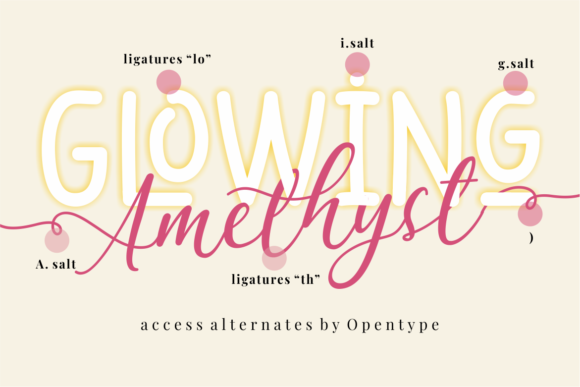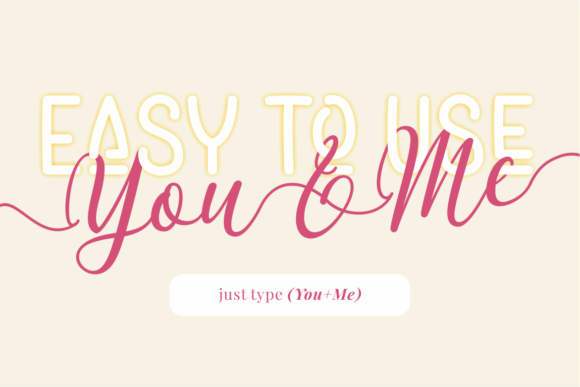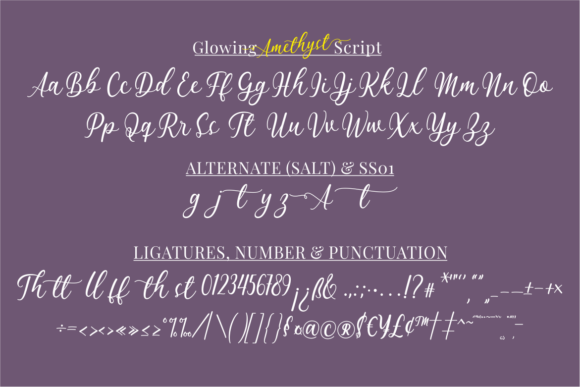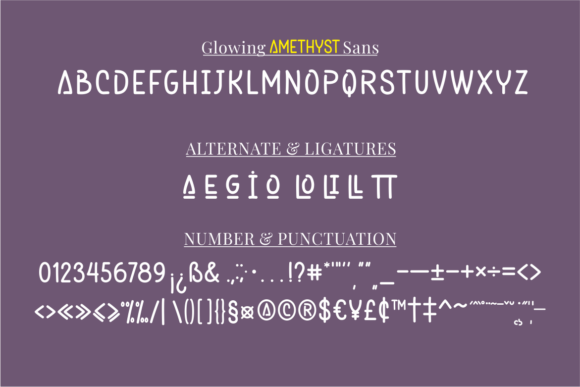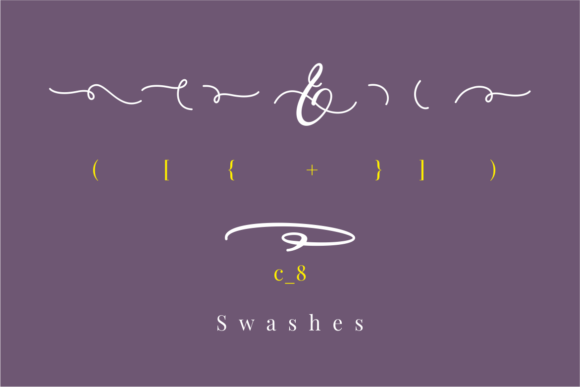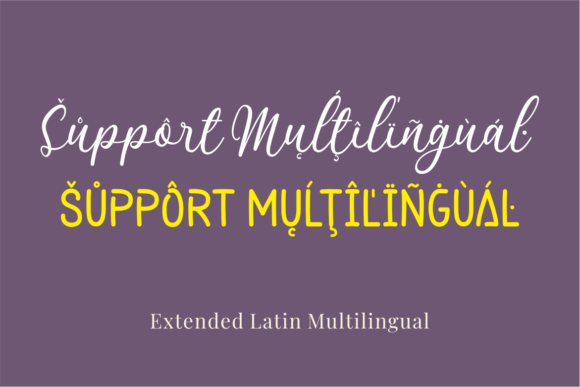
Introducing the Glowing Amethyst Font: Elevate Your Crafts with Elegance and Cheer
Are you a designer or crafter looking for the perfect font to add a touch of sophistication and playfulness to your projects? Look no further than the Glowing Amethyst Font! This stunning font duo is designed to complement each other perfectly, making them ideal for a wide range of creative applications. In this article, we’ll dive into the features and benefits of the Glowing Amethyst Font, and explore how it can elevate your crafts to the next level.
A Perfect Pair: The Glowing Amethyst Font Duo
The Glowing Amethyst Font consists of two beautifully crafted fonts that are designed to work together in harmony. Whether used in tandem or separately, these fonts are sure to add a chic and cheery touch to your projects. The fonts feature a elegant and refined aesthetic, making them perfect for a variety of design applications, from stationery and invitations to branding and advertising.
One of the standout features of the Glowing Amethyst Font is its PUA (Private Use Area) encoding. This means that you can access all glyphs and swashes with ease, giving you maximum flexibility and creative control. With PUA encoding, you can easily insert special characters, ligatures, and swashes into your designs, allowing you to add an extra layer of depth and visual interest.
The Glowing Amethyst Font is incredibly versatile, making it suitable for a wide range of design applications. Here are just a few ideas to get you started:
- Stationery and invitations: Add a touch of elegance and sophistication to your stationery and invitations with the Glowing Amethyst Font.
- Branding and advertising: Use the Glowing Amethyst Font to create eye-catching logos, advertisements, and marketing materials that are sure to grab attention.
- Crafting and scrapbooking: Add a cheery and playful touch to your crafts and scrapbooking projects with the Glowing Amethyst Font.
- Digital design: Use the Glowing Amethyst Font in your digital designs, such as social media graphics, blog posts, and website headers.
Why Choose the Glowing Amethyst Font?
So why should you choose the Glowing Amethyst Font for your design projects? Here are just a few reasons:
- Unique and elegant aesthetic: The Glowing Amethyst Font features a unique and elegant aesthetic that is sure to set your designs apart.
- High-quality design: The font is carefully crafted with attention to detail, ensuring a high-quality design that looks great in any application.
- Easy to use: The PUA encoding makes it easy to access all glyphs and swashes, giving you maximum creative control.
- Versatile: The Glowing Amethyst Font is suitable for a wide range of design applications, making it a great addition to any design library.
| Font Name | Glowing Amethyst Font |
| Author | a piece of cake |